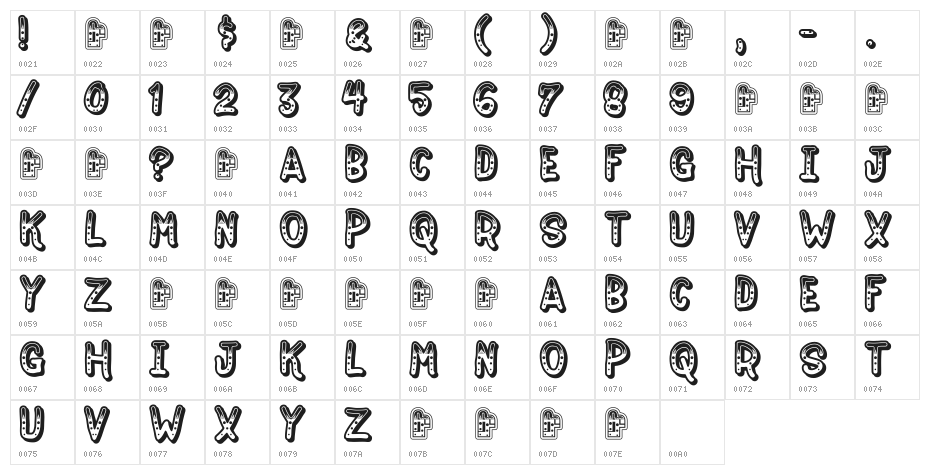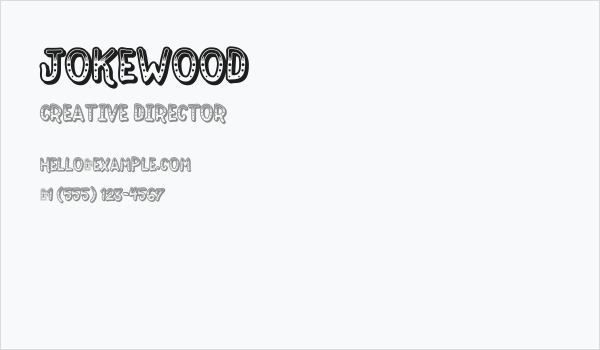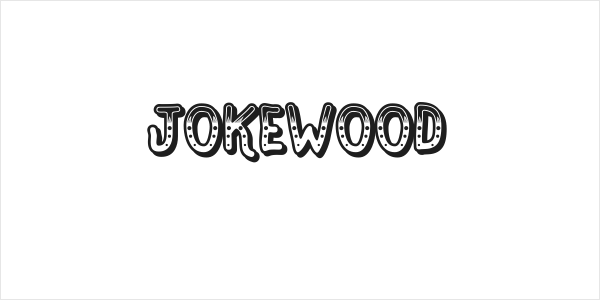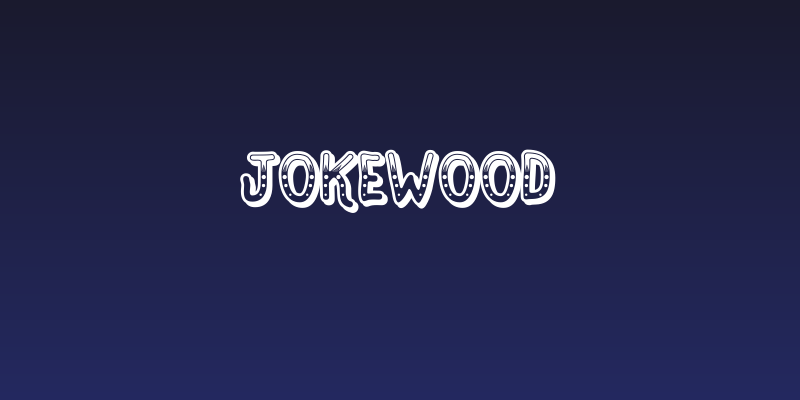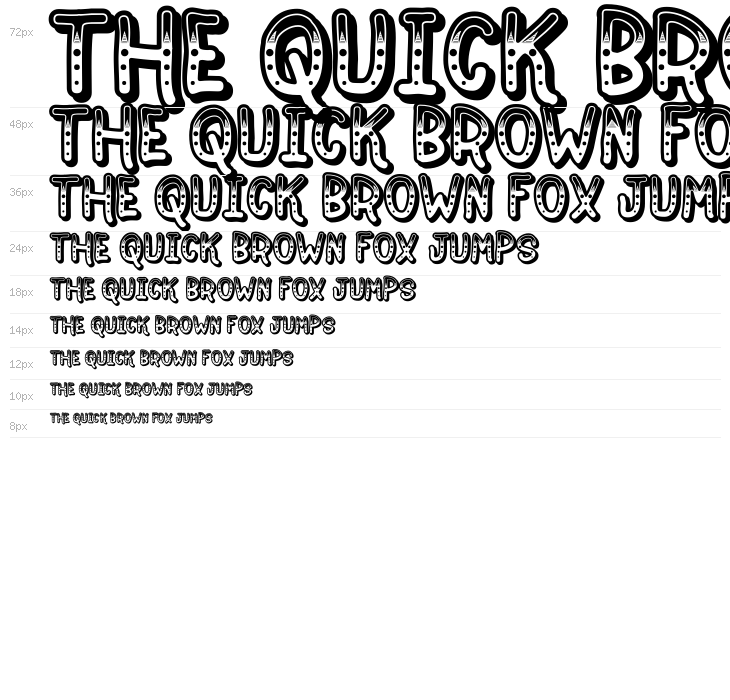
Jokewood Font
Jokewood Description
This playful and whimsical font features bold, rounded characters with a unique dotted pattern inside each letter, adding a sense of fun and creativity. The thick outlines and consistent stroke width give it a cartoonish and lively appearance, making it ideal for projects that require a touch of humor and lightheartedness. The font maintains a uniform height across all characters, ensuring readability while still embracing its decorative nature. Its distinctive style is perfect for capturing attention and conveying a sense of joy and amusement.
| Overall Style | Playful, Cartoonish |
| Proposed Projects | Great for children's books, comic strips, party invitations, playful branding, and posters. |